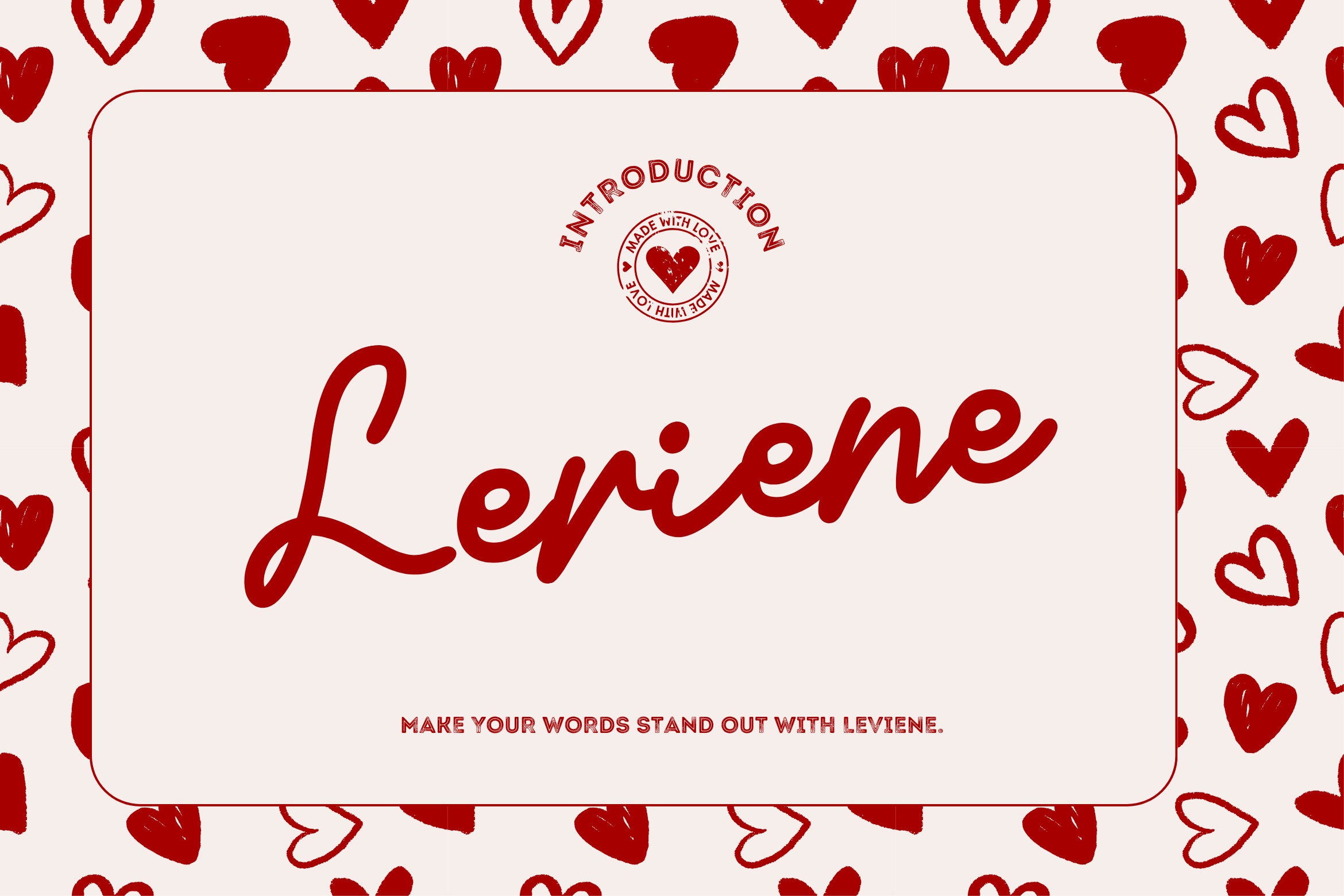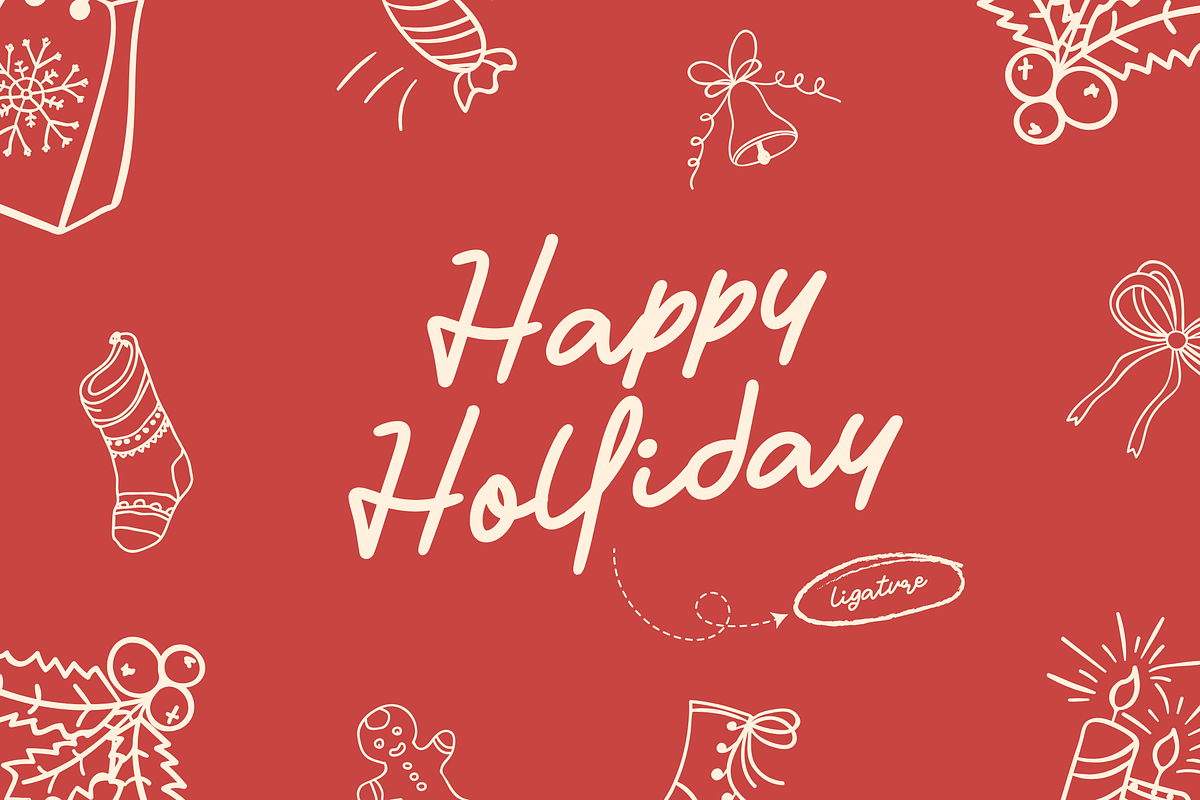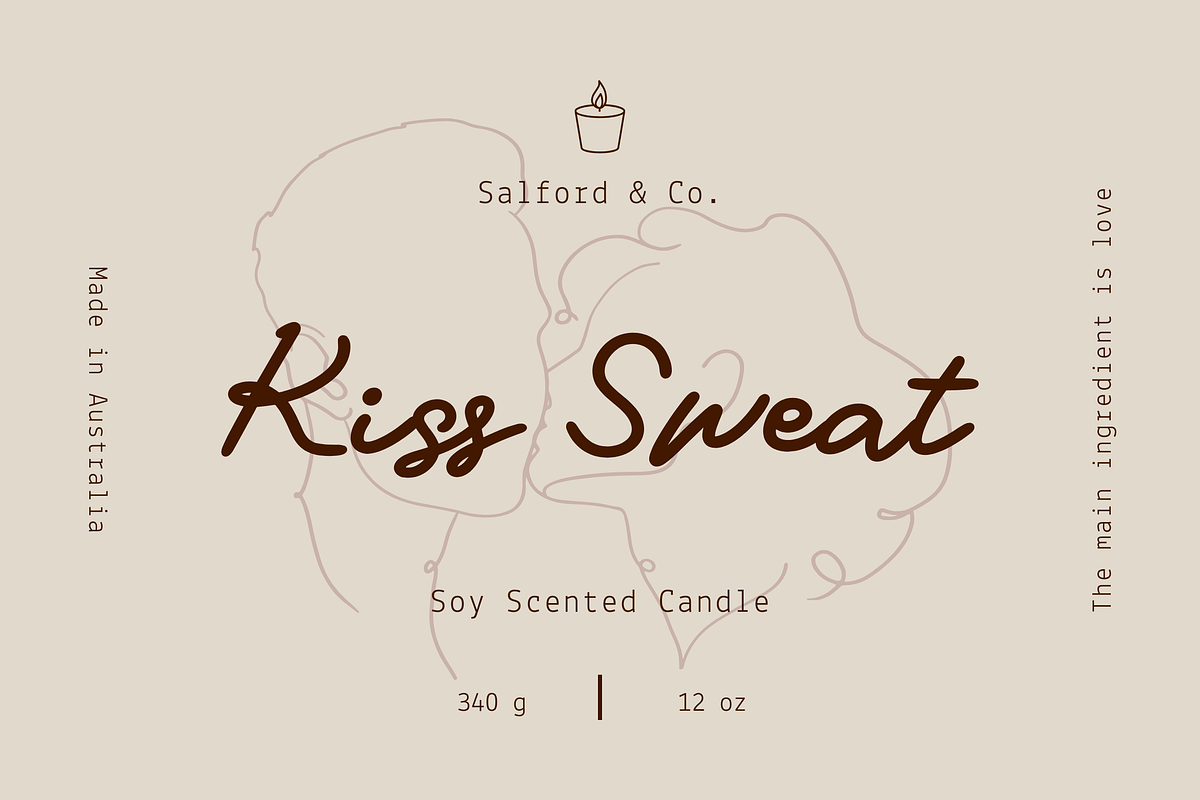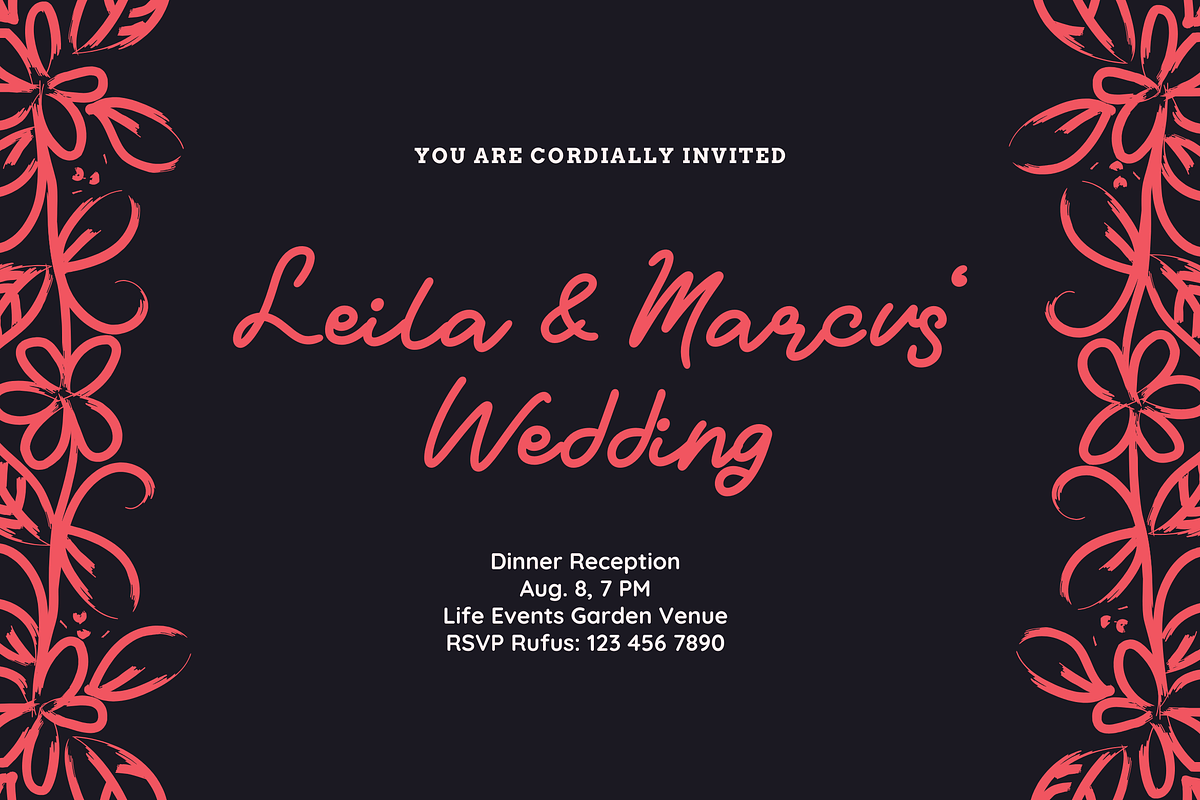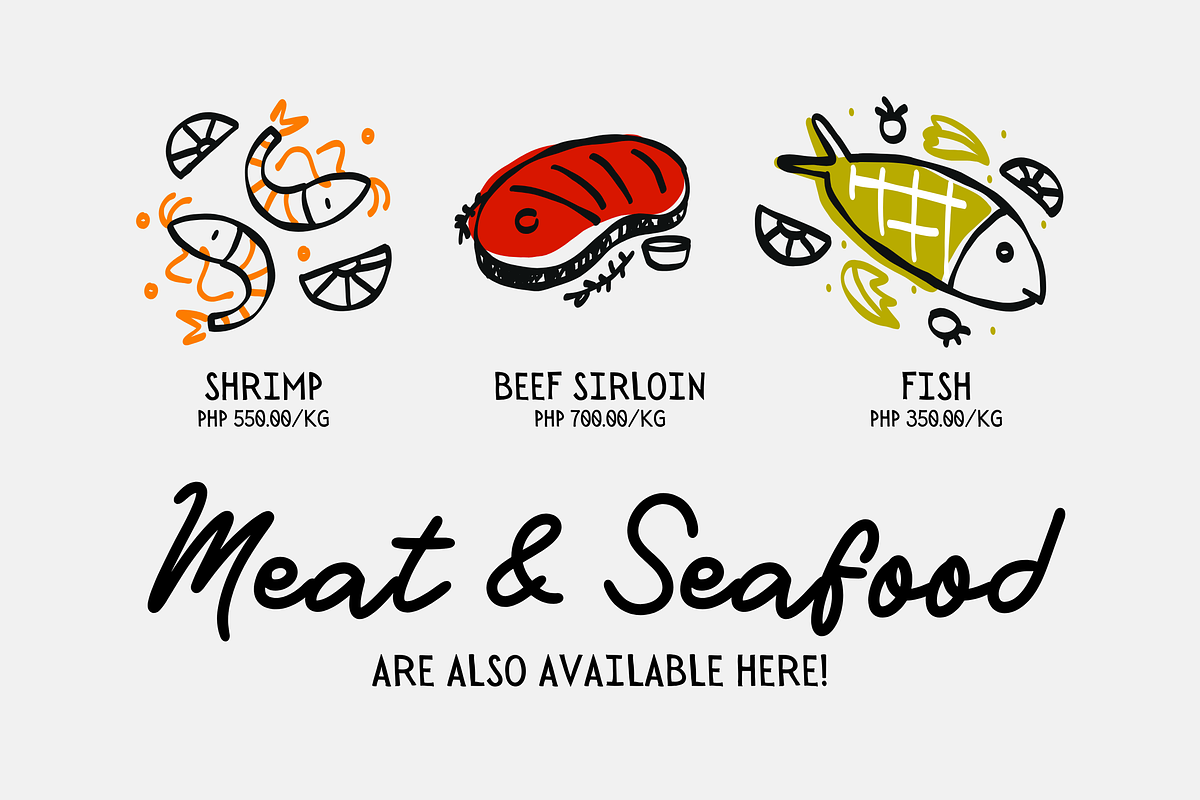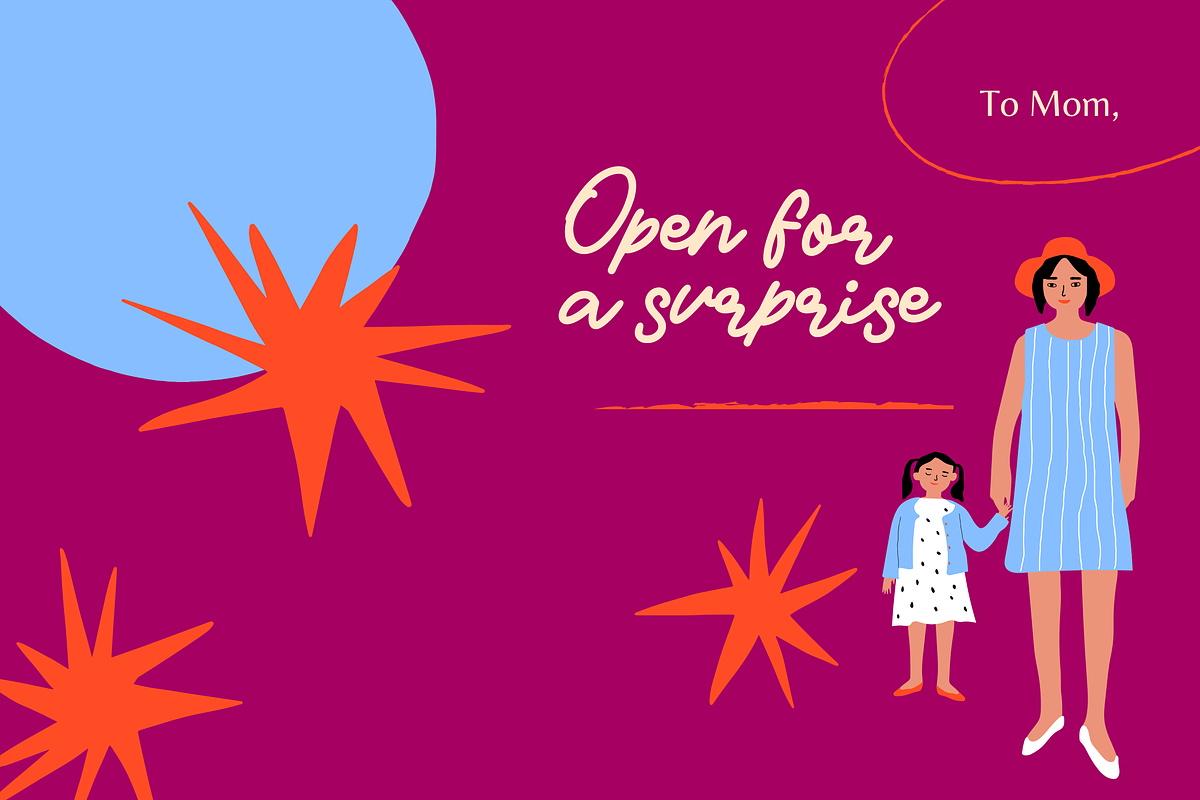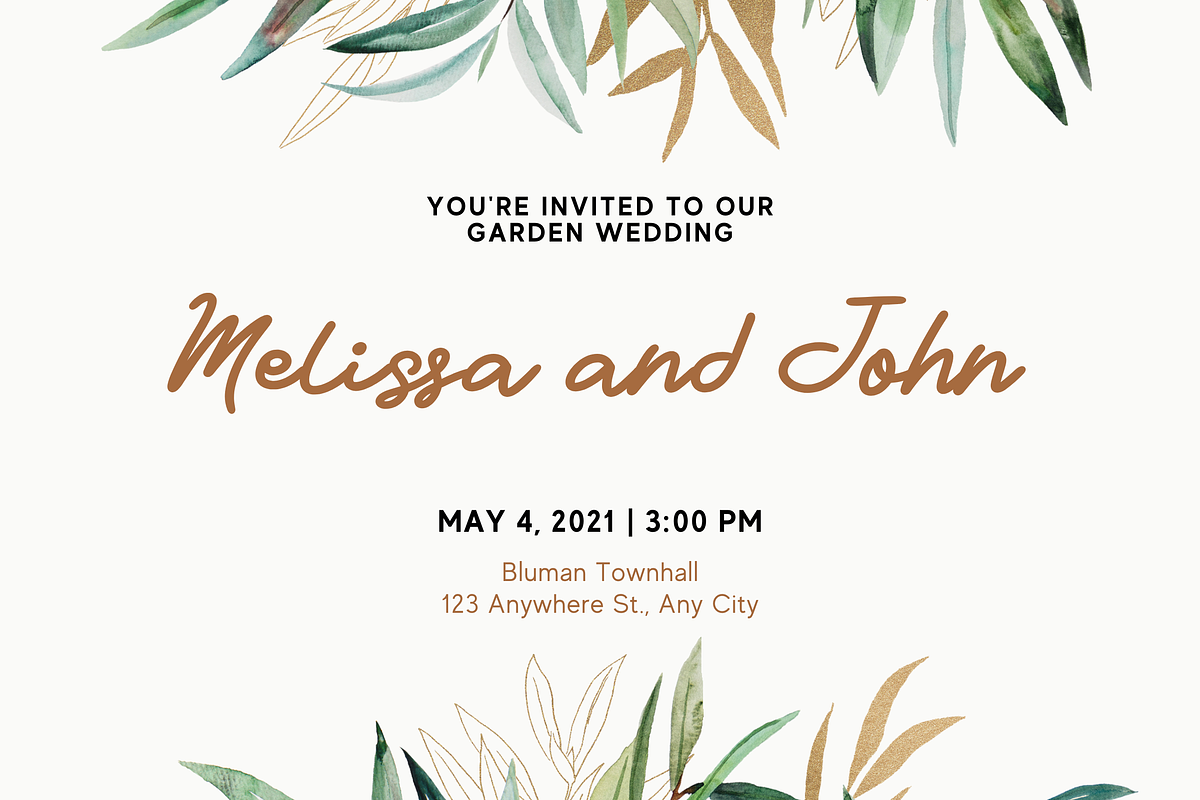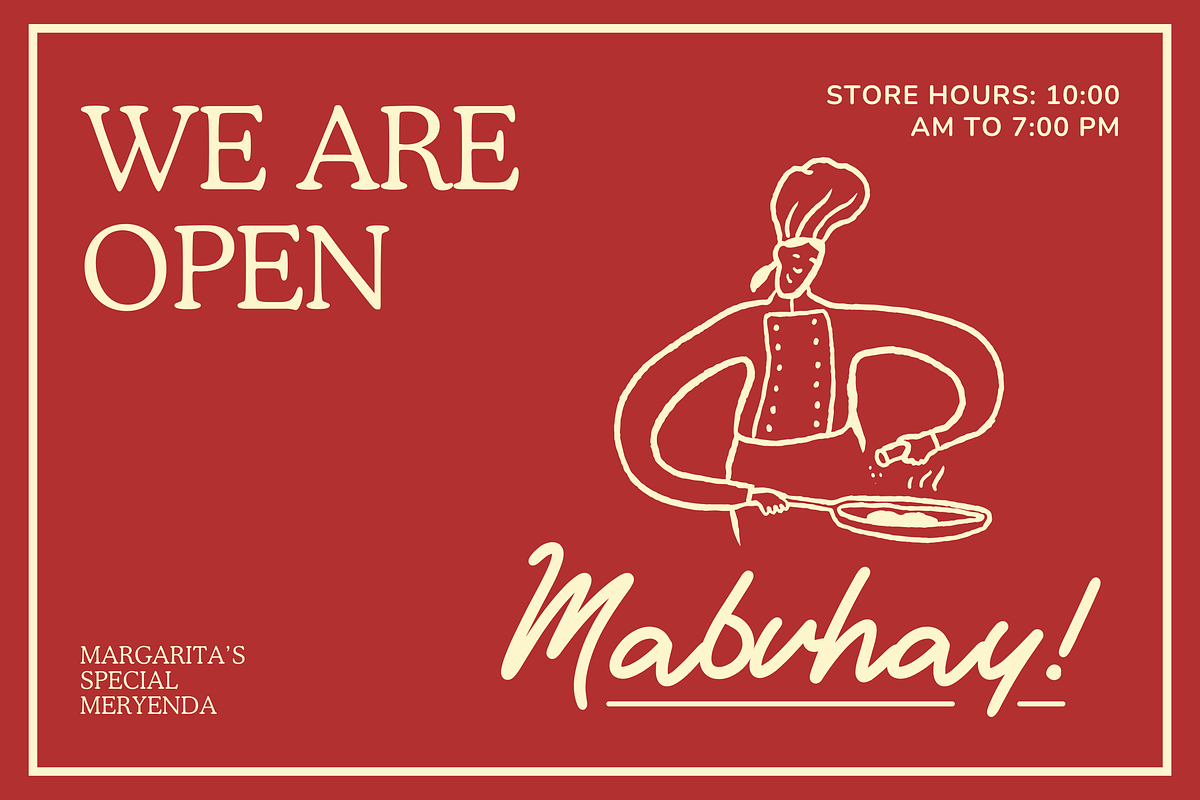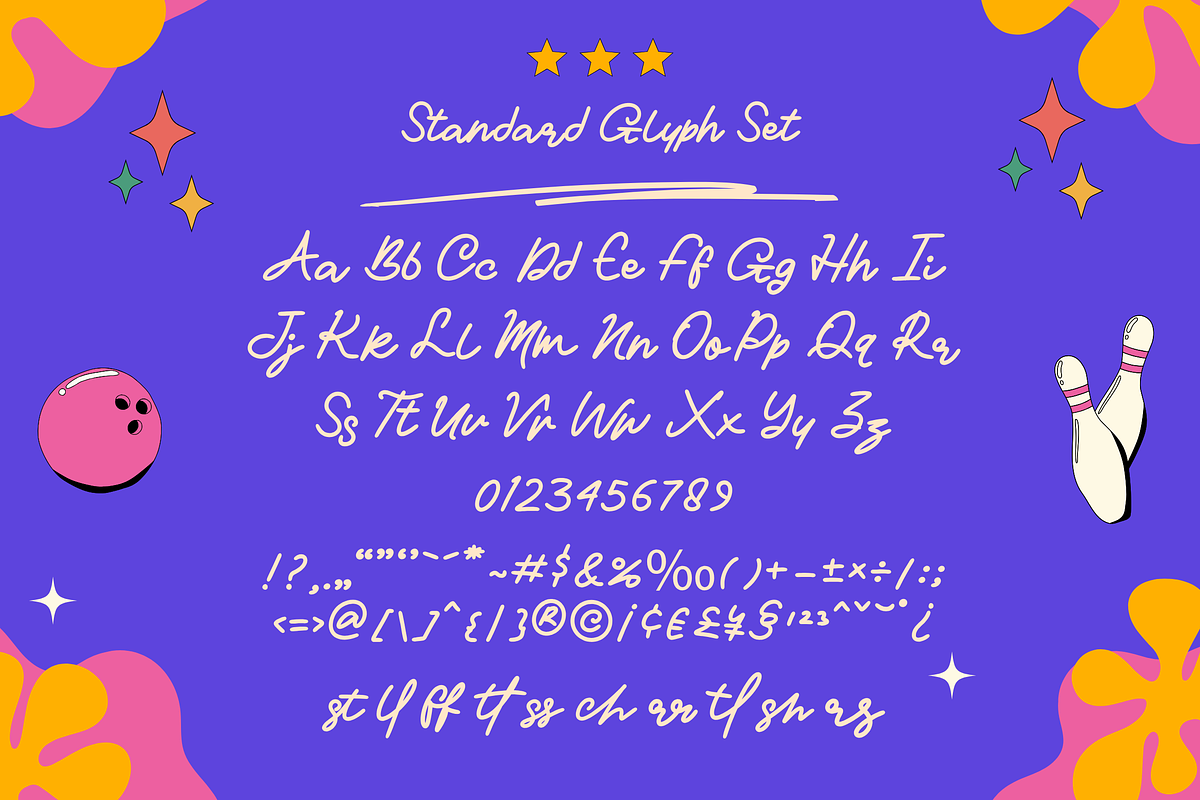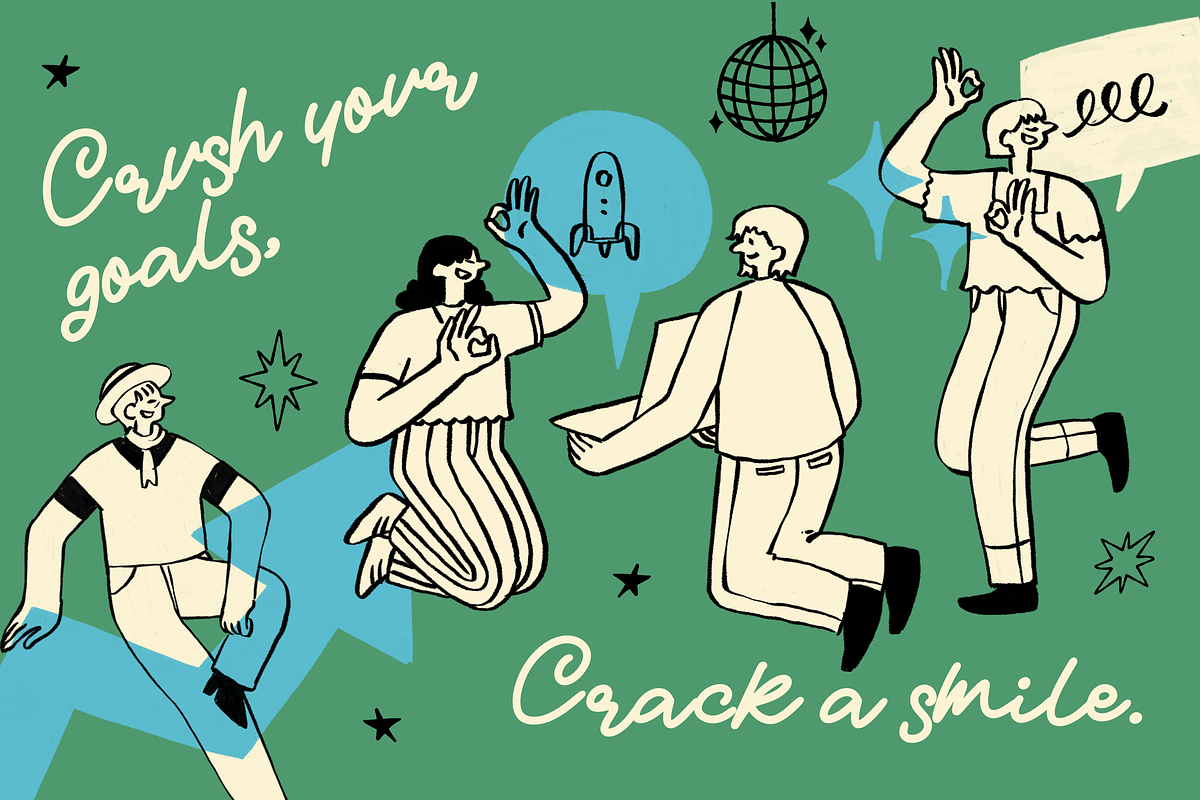
Leviene – A Bold & Elegant Font
✨ Leviene – A Bold & Elegant Handwritten Script ✨
Unleash the power of Leviene, a bold handwritten script designed for those who seek confidence and sophistication in every stroke. With its strong curves and fluid motion, Leviene merges boldness and elegance, making it the perfect choice for branding, fashion, and social media designs.
- Bold & Confident – Leviene’s thick, expressive strokes add strength and personality, making every word stand out.
- Elegant & Modern – A perfect balance between bold script and graceful flow, ideal for logos, apparel, and editorial branding.
- Versatile & Impactful – Whether it’s for headline posters, product packaging, or luxury branding, Leviene delivers a statement-making aesthetic.
Step into a world of bold sophistication with Leviene—where handwritten artistry meets modern confidence. Ready to elevate your designs?
✅ 160+ ligatures and alternate letters
✅ Numerals & Punctuation
🔥 Let Leviene redefine bold elegance in your creative journey! 🔥